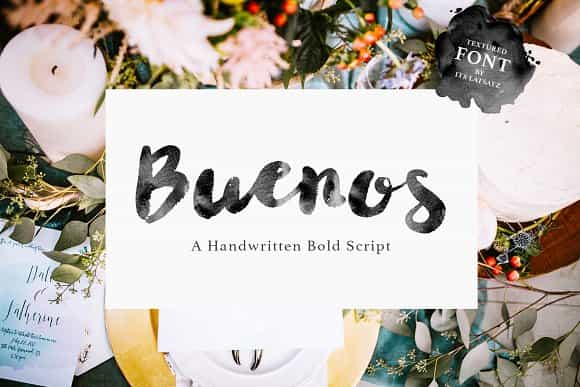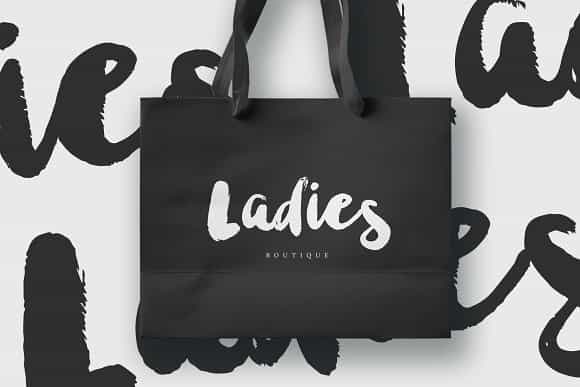
Hello! It is Buenos Script here, a contemporary and catchy typeface that will be just right for your next job. Buenos Script is perfect for a wedding, event, invitation, escort card, table number, header menus, display, logos, slider blog, custom address, stamps, packaging, greeting card, etc.